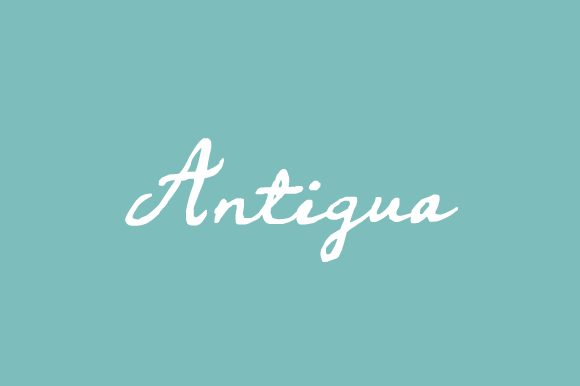
HomeScript FontsAntigua Family Font Script Fonts Antigua Family Font FacebookXPinterestWhatsApp About Antigua Family Font TheĀ Antigua Family is a ancient looking calligraphy type family created by Manuel Eduardo Corradine. DOWNLOAD NOW People also explored Smooth Skin Font Candy Park Font Tanpa Kata Font Bramesta Font Sutrisnice Font Cloven Font Dream Deatination Font Patrigio Font Teratei Font 344 0 TagsAntigua Family Font Previous articleCanciller Family FontNext articleHey Pretty Girl Font LEAVE A REPLY Cancel reply Comment: Please enter your comment! Name:* Please enter your name here Email:* You have entered an incorrect email address! Please enter your email address here Website: Save my name, email, and website in this browser for the next time I comment. Personal Use Free Vanity Personal Use Free Read more about this font Party Pooper Personal Use Free Read more about this font Oito Personal Use Free Read more about this font Propaganda Personal Use Free Read more about this font BLOG The 10 Best Handwriting Fonts to Add Personality to Your Designs 10 of the Best Handwriting Fonts for Adding Personality to Your Designs There will undoubtedly be no other better choice than handwriting fonts to give... Exploring Font Trends To increase your work productivity, choose the most readable fonts. Elegant Wedding Invitation Fonts ā Handwritten & Script Fonts